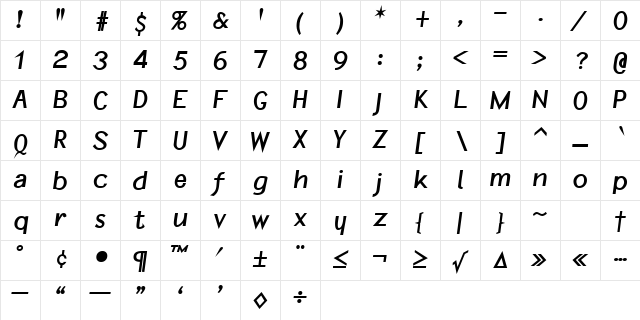
CarnubaSSK is a composed and adaptable typeface that performs quietly and consistently across a wide range of design contexts. The slanted form adds forward momentum and visual energy. Its bold stroke weight gives it real presence on the page.
Pro Tip: Use CarnubaSSK for emphasis, pull quotes, and subheadings where its slanted energy can add rhythm to the layout.